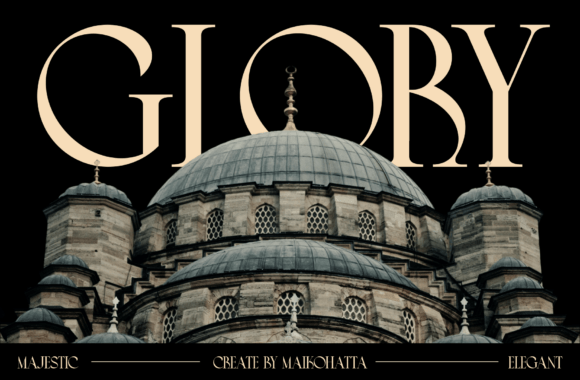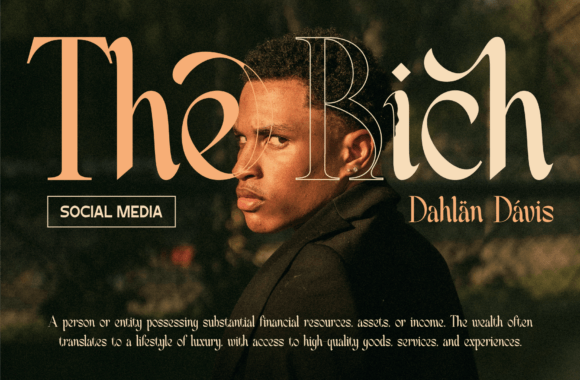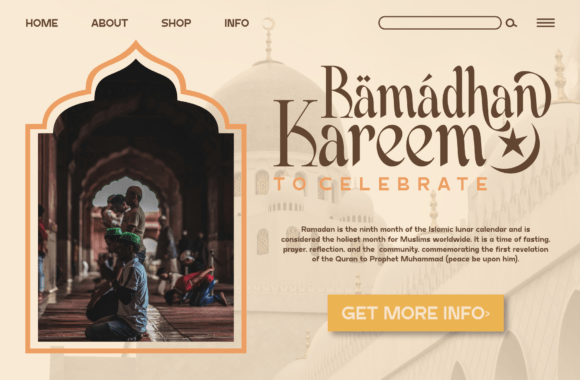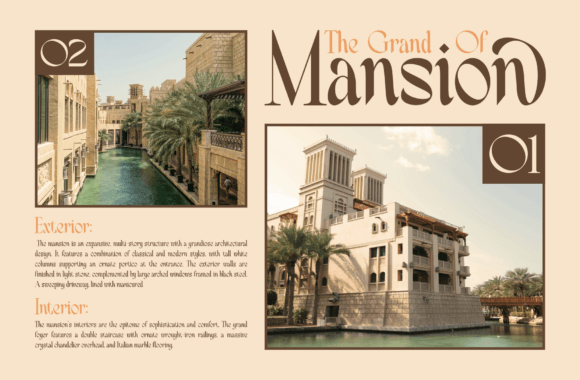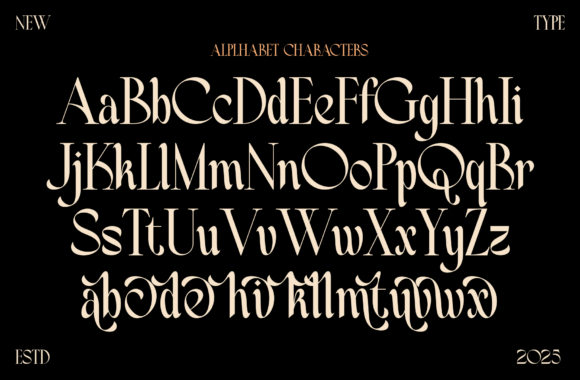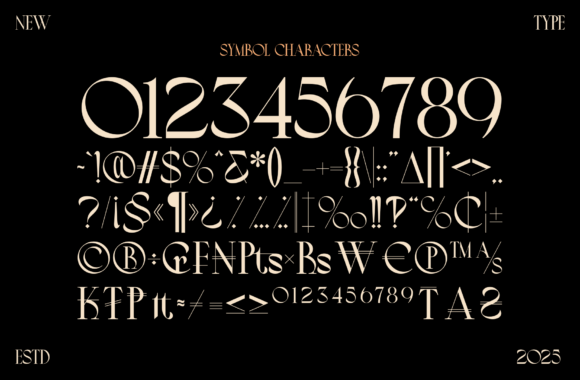
Introduction to Qashi Font
This font features a balanced proportion of stroke thickness and fineness, creating attractive and easy-to-read visuals.
This modern serif style is often characterized by a bold distinction between thick and thin lines, providing a touch that is understated but still stands out .